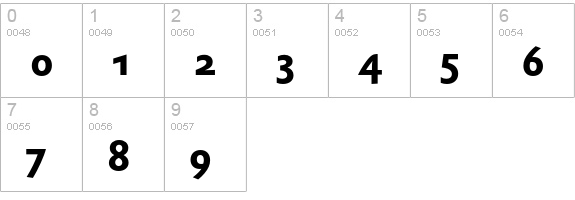
DTLProkyonST Bold is a strong, high-contrast variant in the DTLProkyonST typeface family \xE2\x80\x94 well suited to headlines, attention-grabbing titles, and strong calls-to-action.
DTLProkyonST Bold is a striking and versatile font that exudes confidence and modernity. Its bold weight commands attention and makes a strong statement in any design project. The clean lines and sharp edges of this font lend a professional and polished look to any text. DTLProkyonST Bold is perfect for headlines, branding, packaging, and any project that requires a bold and impactful typeface. The best part is that DTLProkyonST Bold is available for free download at FontsMarket.com. Now you can elevate your designs with this stylish and eye-catching font without breaking the bank. Don't miss out on the opportunity to add DTLProkyonST Bold to your font collection today!